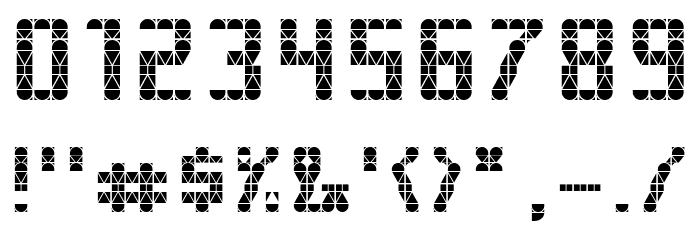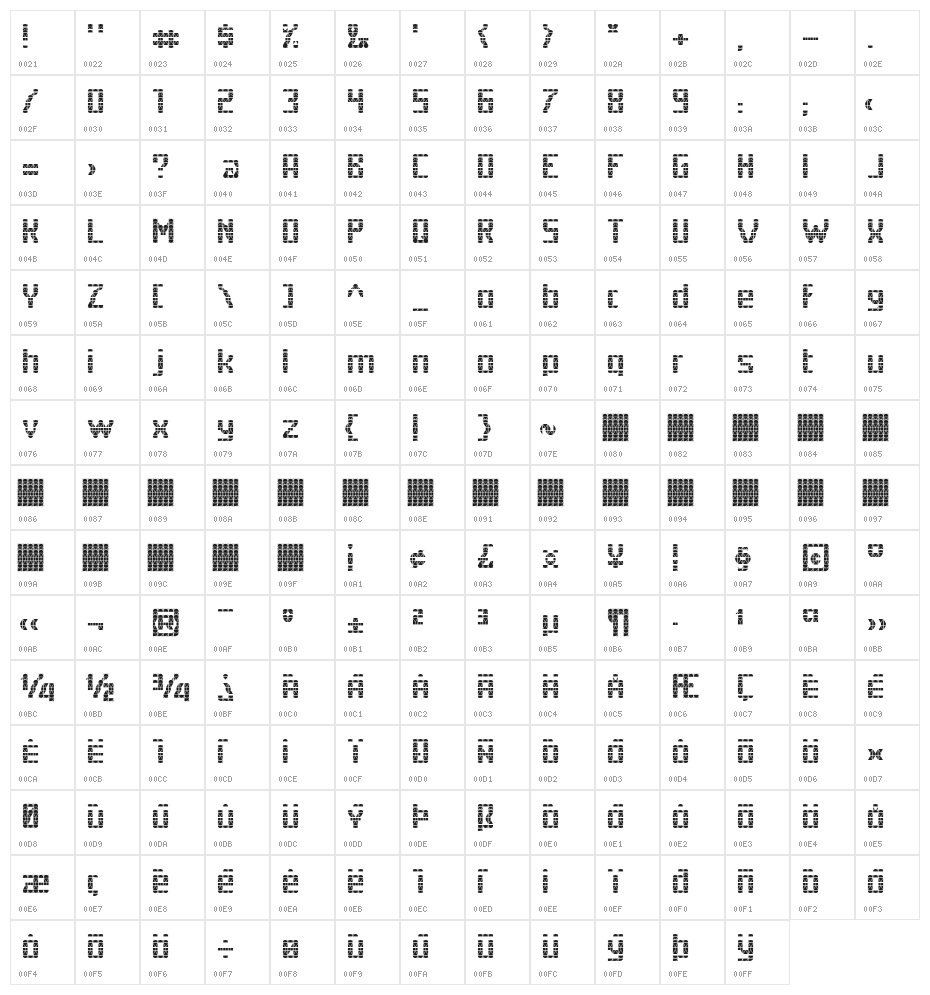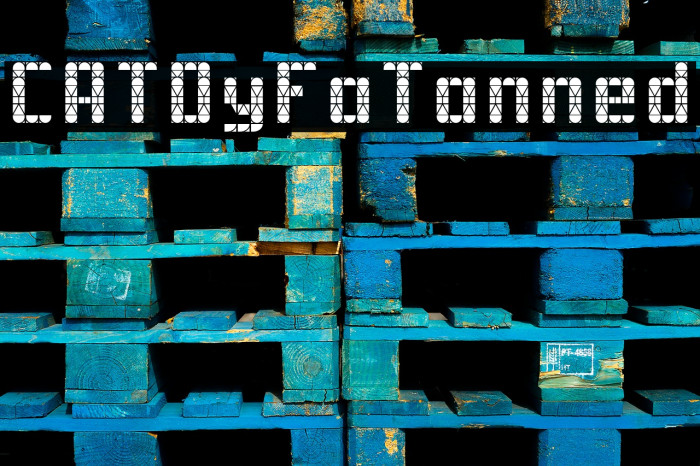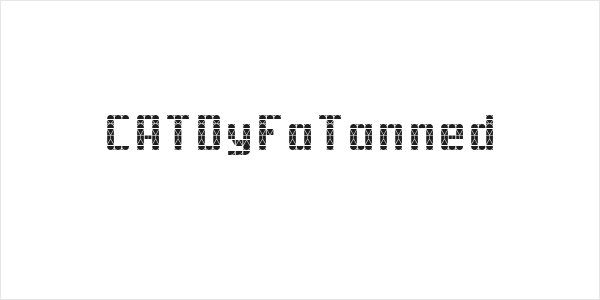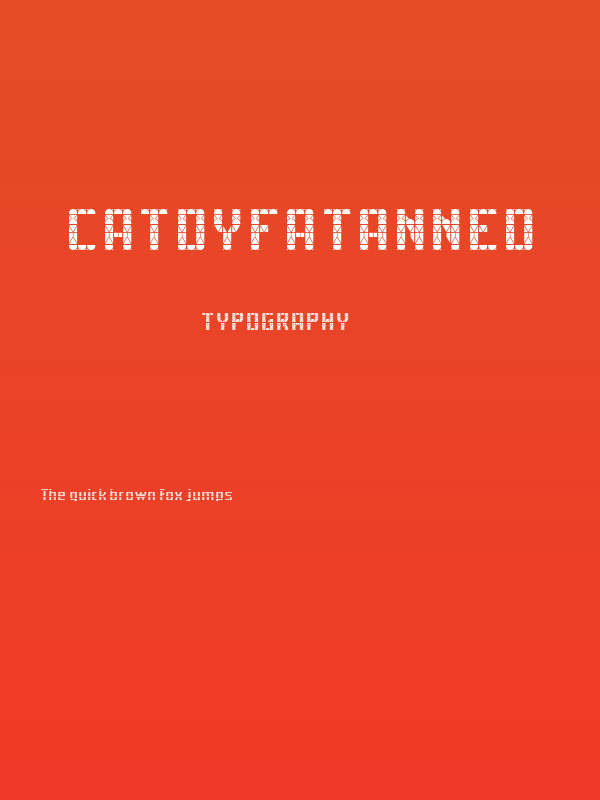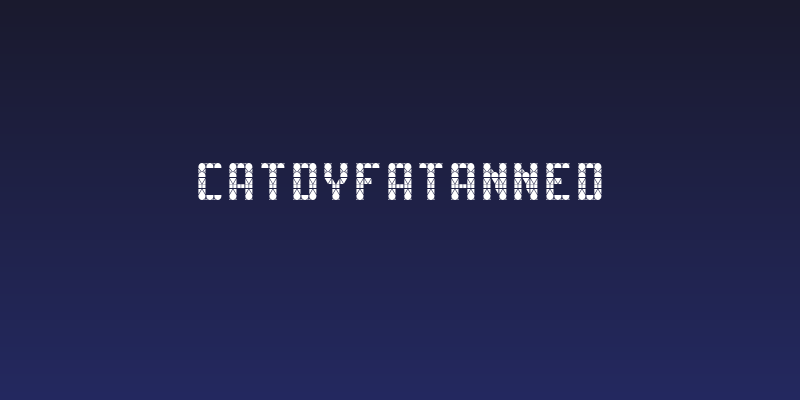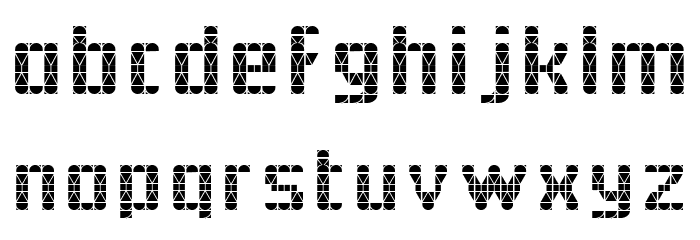
CATDyFaTanned Font
CATDyFaTanned Description
This font features a unique geometric pattern within each character, creating a striking visual effect. The letters are constructed with a series of interconnected triangles, giving them a textured and layered appearance. The overall design is bold and modern, with a strong emphasis on symmetry and structure. The uppercase and lowercase letters maintain a consistent style, while the numbers and special characters seamlessly integrate into the overall aesthetic. This font's distinct look makes it ideal for projects that require a contemporary and eye-catching typeface.
| Use Case | Logos, Posters, Digital Art |
| Proposed Projects | Ideal for branding, posters, digital art, and any project needing a modern, eye-catching typeface. |